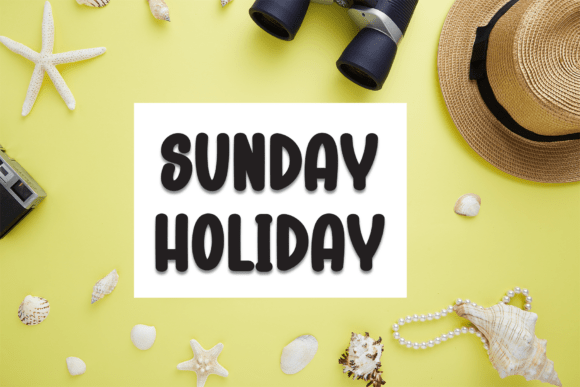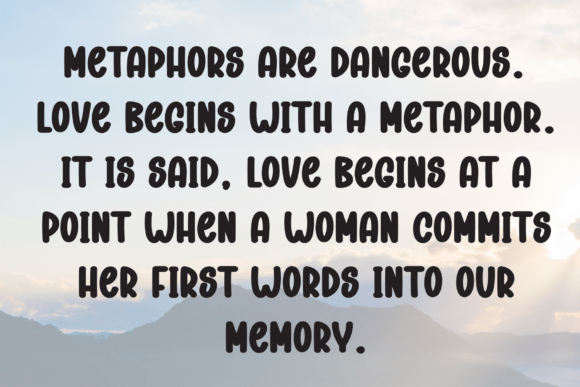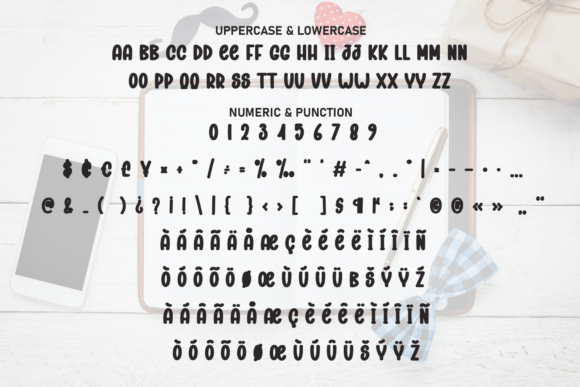
Introduction to Daddy Diary Font
As I sat at my desk, surrounded by scraps of paper and abandoned craft projects, I stumbled upon a font that brought a smile to my face. The Daddy Diary Font, with its soft, chunky, and playful design, is the perfect addition to any creative project. Whether you’re working on a children’s book, a nursery print, or a DIY craft, this font is sure to bring a touch of warmth and charm to your design.
I love how the Daddy Diary Font’s rounded edges and bold appearance make it feel friendly and fun. It’s a design resource that’s perfect for personal and family-oriented projects, and its high quality makes it a valuable addition to any designer’s toolkit. With its transparent background and free download options, it’s easy to incorporate into your next project.
As a designer, there’s nothing quite like discovering a new font that sparks creativity and inspiration. The Daddy Diary Font is one of those hidden gems that’s sure to become a go-to resource for any design project.
Key Features of Daddy Diary Font
- High-quality design: Daddy Diary Font offers a unique and modern aesthetic perfect for creative projects.
- Transparent background: This feature makes it easy to combine with other design elements and provides a clean look.
- Unique characteristics: Daddy Diary Font features a playful, handwritten style that adds a personal touch to any design.
Honest Review: Daddy Diary Font
I recently had the chance to work with the Daddy Diary Font, and I must say it’s been a game-changer for my creative project. The font’s unique, playful design makes it perfect for adding a personal touch to my designs.
One of the things that stands out about the Daddy Diary Font is its high quality. The font is incredibly crisp and clear, making it perfect for both digital and print designs. I was also impressed by the fact that it’s available for free download, which is a huge plus for designers on a budget.
Here are some things that work well with the Daddy Diary Font:
- ✨ Unique and playful design
- ✨ High quality and crisp text
- ✨ Transparent background, making it easy to use in any design
- ⚠️ Limited font sizes and styles available
- ⚠️ May not be suitable for formal or professional designs
Overall, I’m really impressed with the Daddy Diary Font. It’s a great addition to any designer’s toolkit, and I’d highly recommend it to anyone looking for a unique and high-quality font for their creative project.
Best Practices and Tips
To get the most out of the Daddy Diary Font, use it in creative projects that require a unique and personalized touch. Experiment with different font sizes, colors, and combinations to find the perfect balance. Remember to adjust the font settings according to the specific design platform you are using.
The Daddy Diary Font is perfect for various applications, including:
- Personalized invitations and cards
- Customized wall art and prints
- DIY craft projects and scrapbooking
- Wedding and event stationery
Alternatives to Daddy Diary Font
Pacifico is a beautiful script font perfect for creative projects that require a touch of elegance and sophistication. It’s ideal for wedding invitations, branding, and other design elements that need a high-quality, cursive feel. Pacifico’s clean lines and transparent background make it a great alternative to Daddy Diary Font.
Compared to Daddy Diary Font, Pacifico has a more refined and classic look, making it suitable for a wider range of design applications.
Great Vibes is a modern script font that’s great for adding a playful touch to your design project. It’s perfect for social media graphics, event invitations, and other creative projects that need a fun and energetic vibe. Great Vibes has a similar feel to Daddy Diary Font, but with a more laid-back and casual tone.
Great Vibes is a great alternative to Daddy Diary Font when you need a font that’s a bit more relaxed and easy-going.